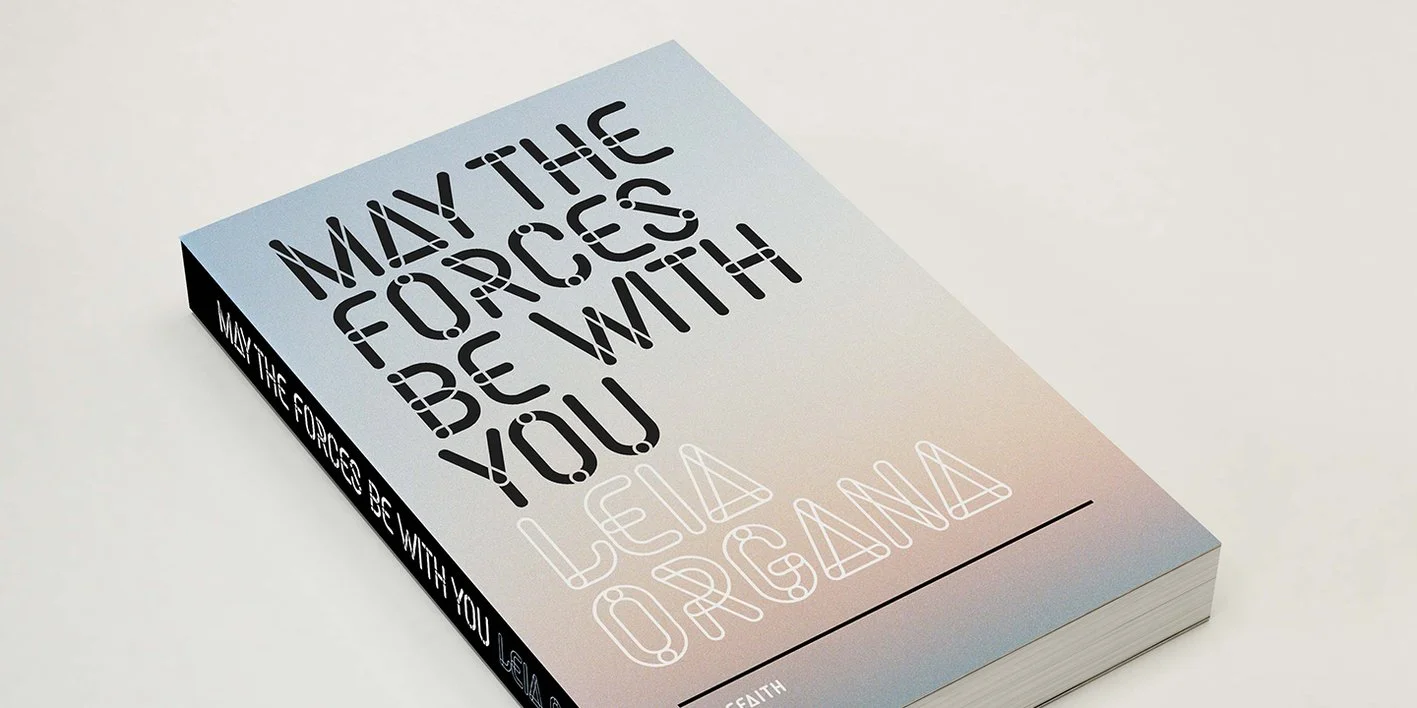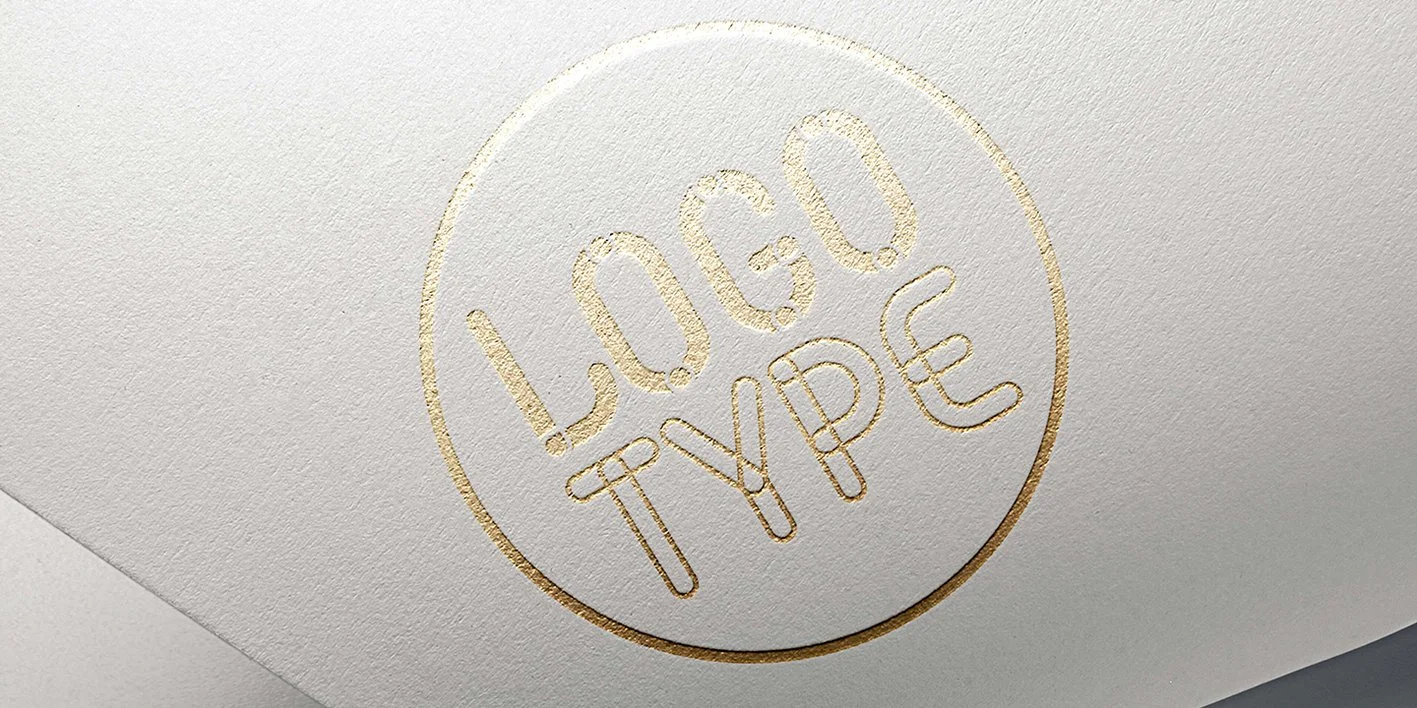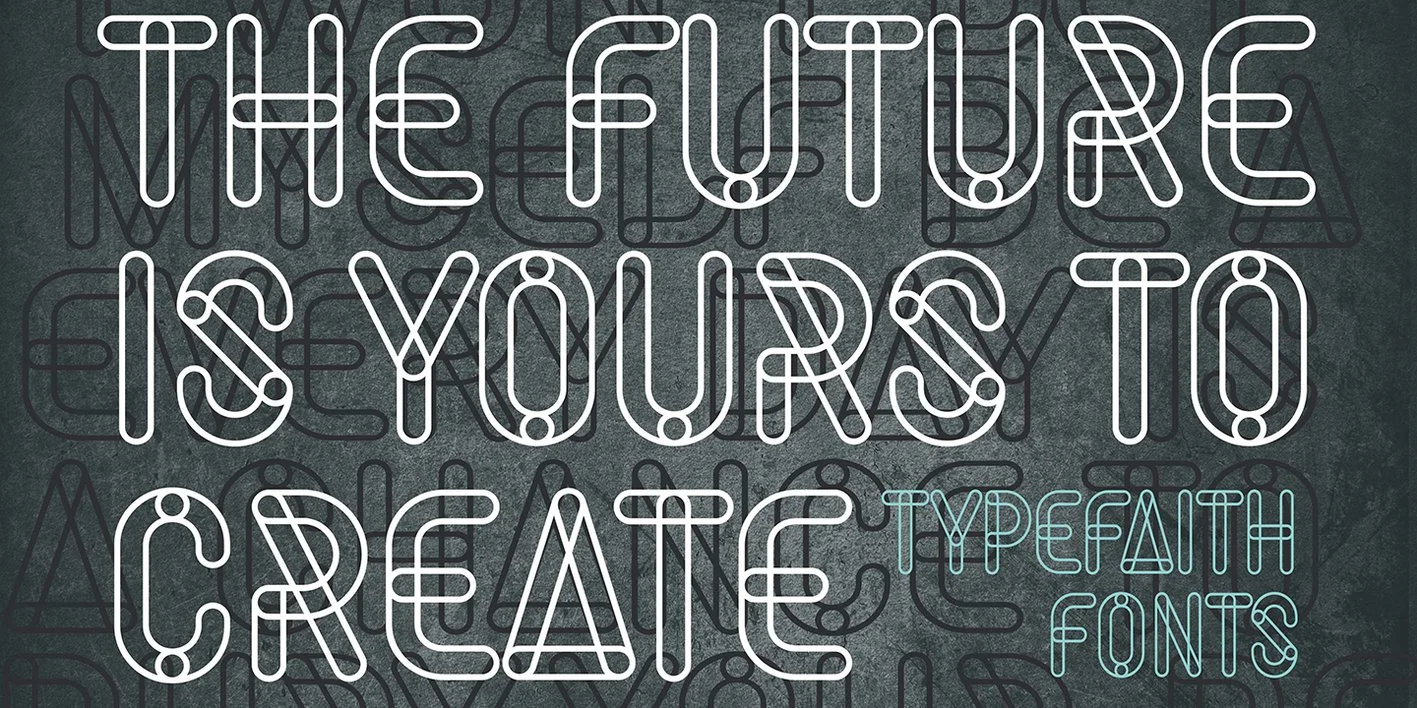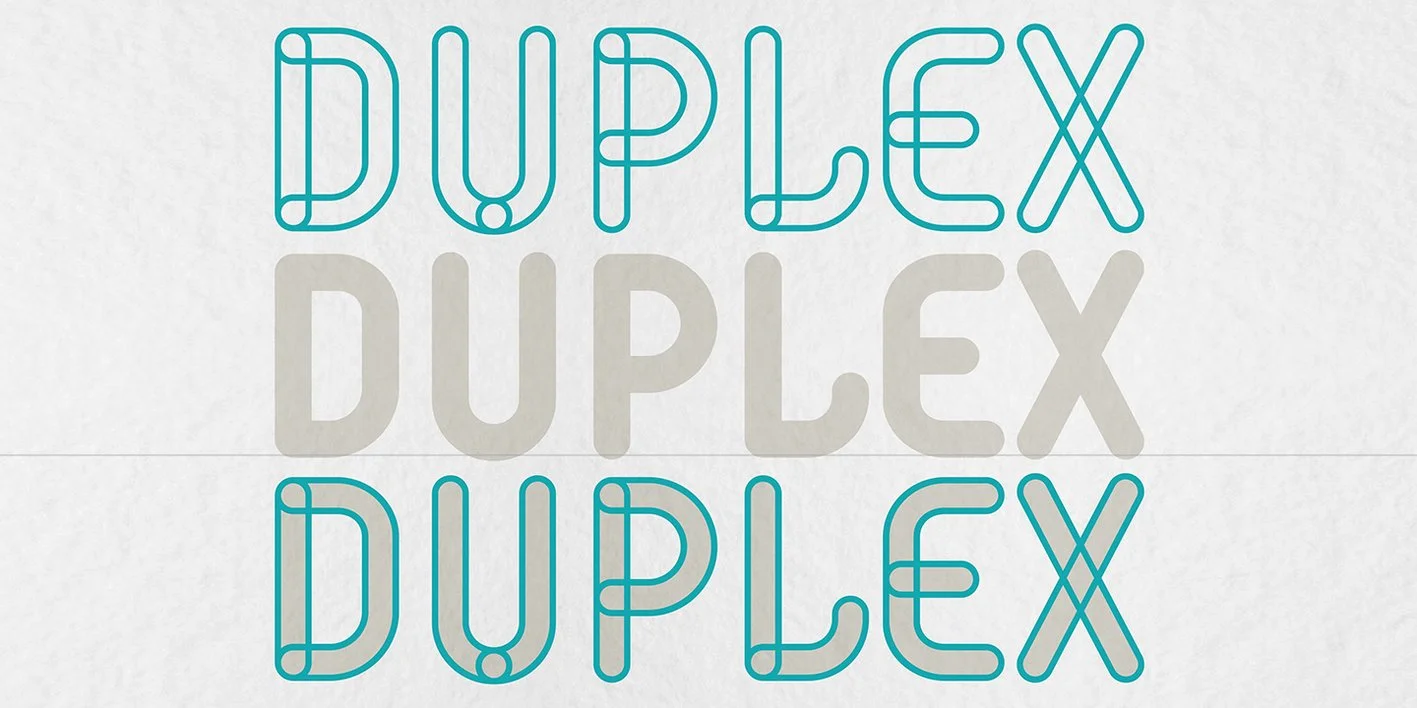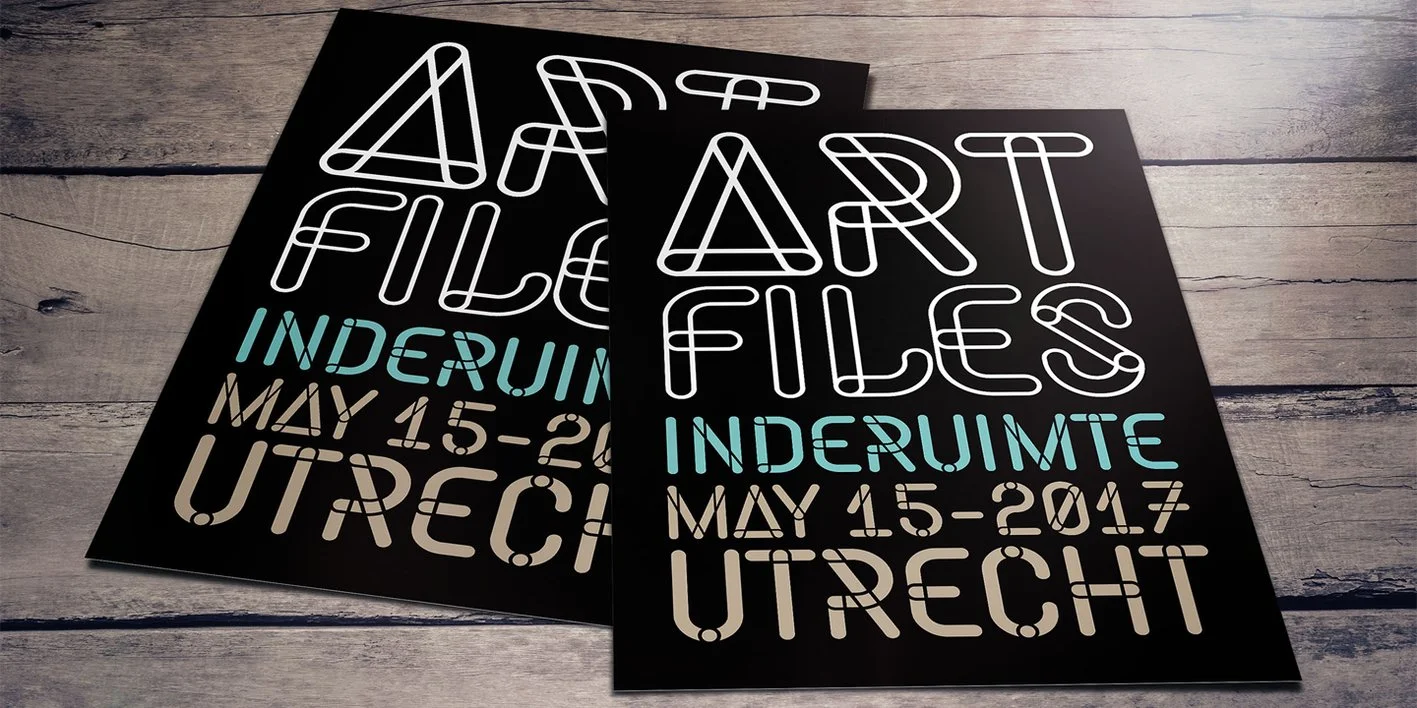
Organa Font
When a design brief calls for both distinctive character without sacrificing readability and immediate visual impact, type choices matter — Organa answers that brief. The typeface brings a versatile sensibility to a broad range of creative disciplines, with versatility across print and screen contexts that holds up whether the work is print-first or screen-first.
In practice, Organa proves particularly effective for logo design, environmental graphics, annual reports, packaging design, brand identity systems. Designers reaching for it find that the type decisions feel resolved rather than laboured — a useful quality when client timelines are tight.
The range of applications extends to web design, editorial layouts, signage systems, advertising campaigns. That breadth is deliberate: the proportions and spacing were stress-tested across a wide range of mock briefs before the typeface was finalised.
Organa sits comfortably alongside both classic and contemporary typefaces in multi-font hierarchies. It takes direction rather than competing for attention — a quality that experienced designers know is harder to find than it appears.
Motion designers building title sequences and lower thirds find Organa a reliable choice for projects that demand both personality and restraint. The design avoids the self-conscious quirkiness that dates quickly, settling instead for considered distinctiveness that holds up over time.